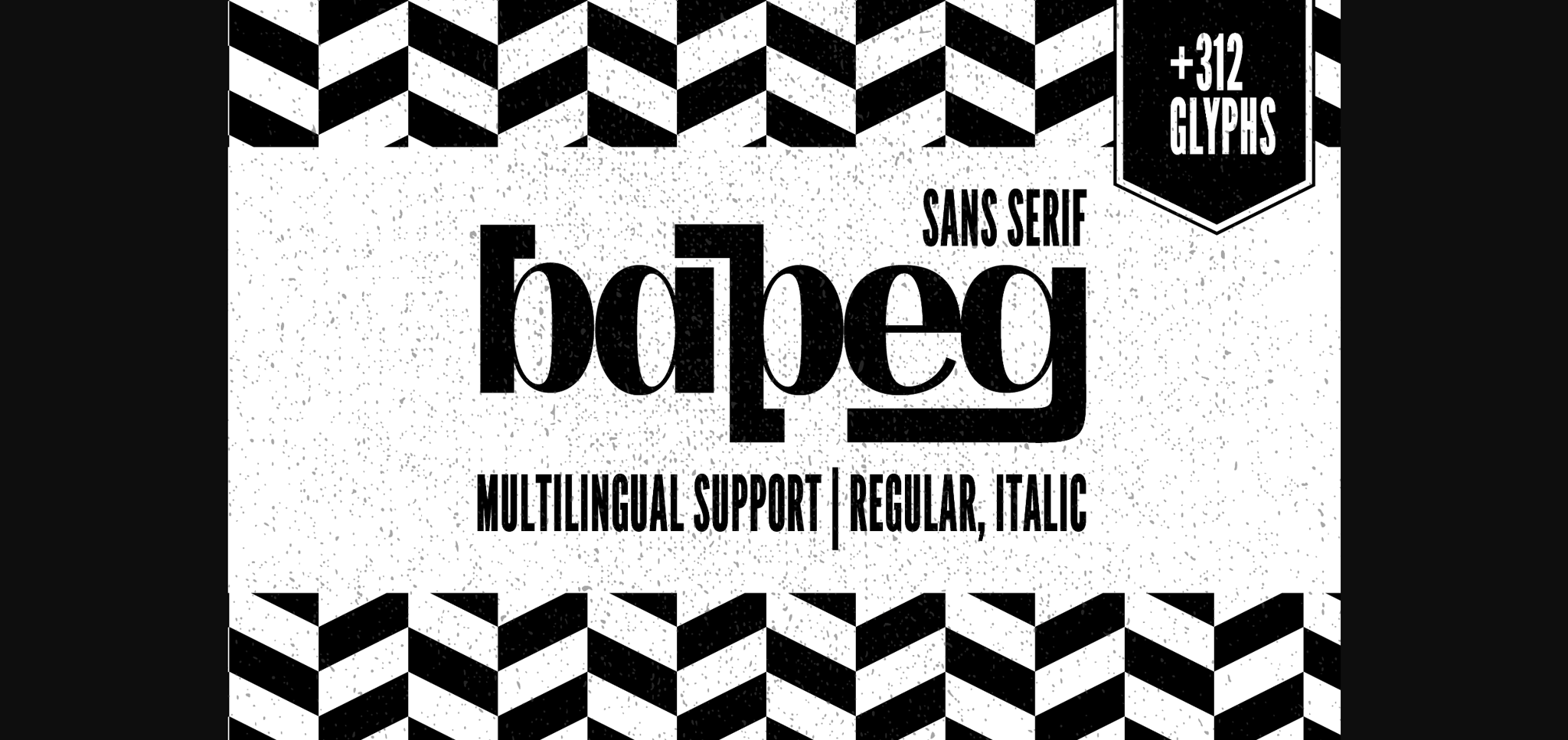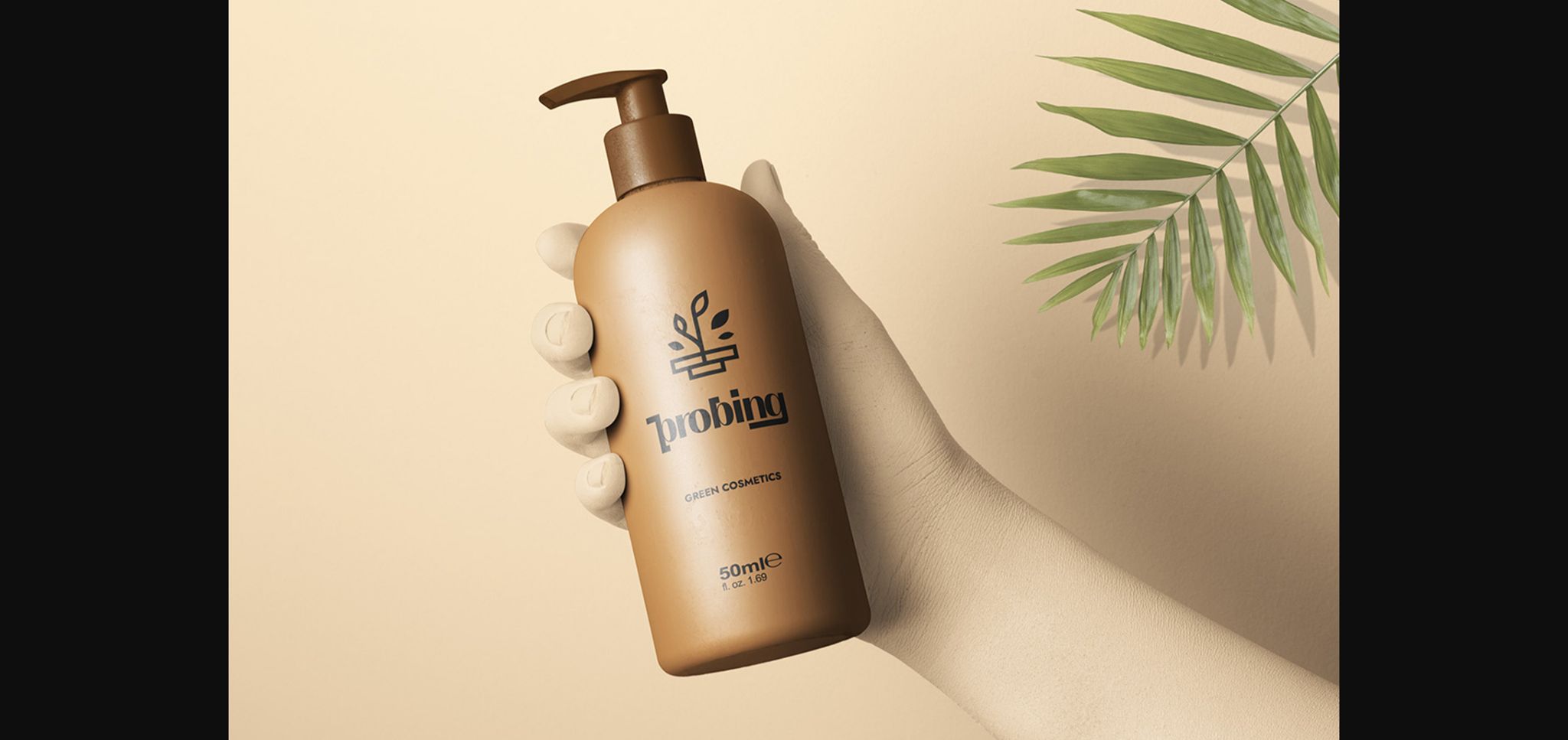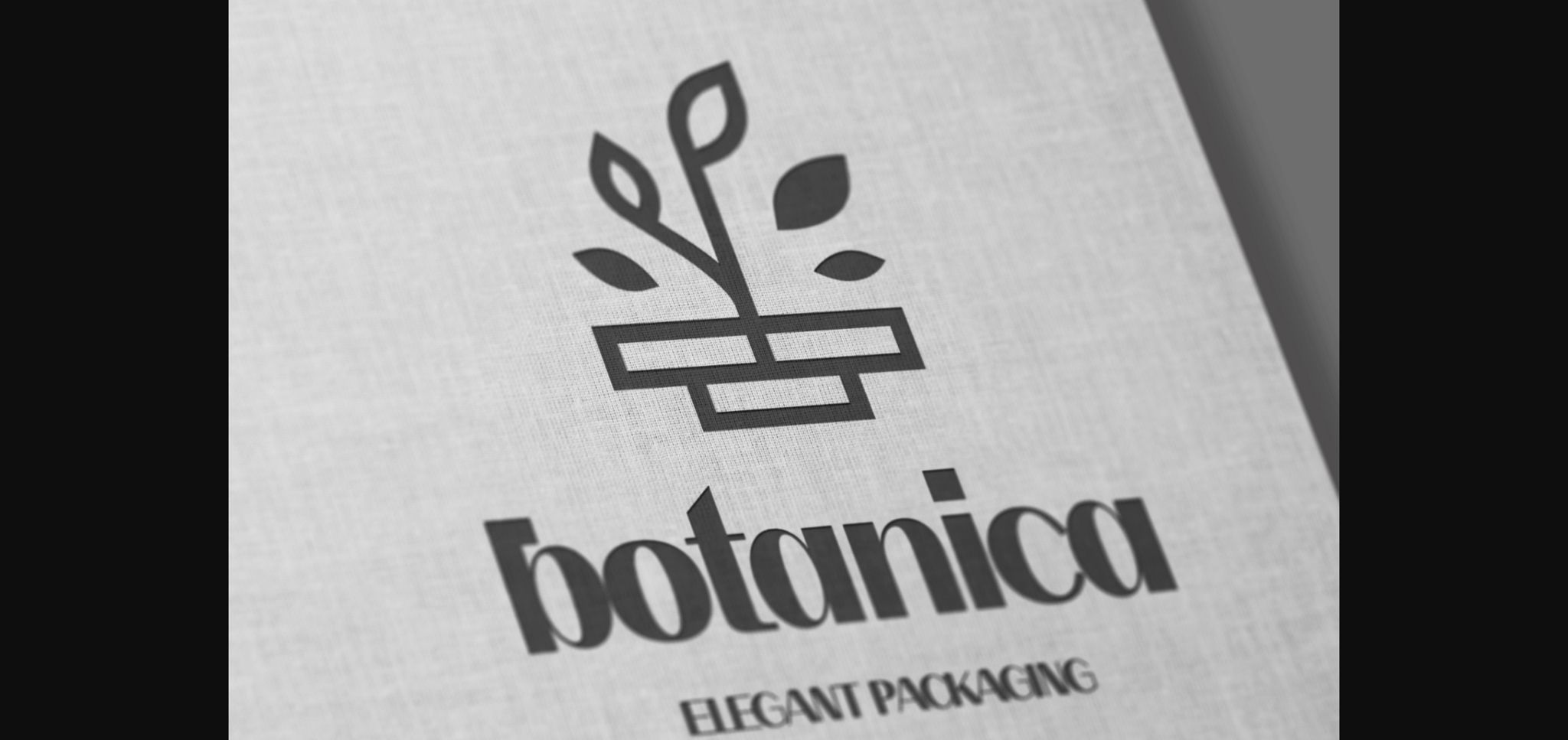
About Bapeg Font
Bapeg is a geometric, delicate, and high-contrast sans serif typeface. Its versatility renders it a valid choice when you are designing logos, packaging design, cosmetics, perfumes, posters, etc.